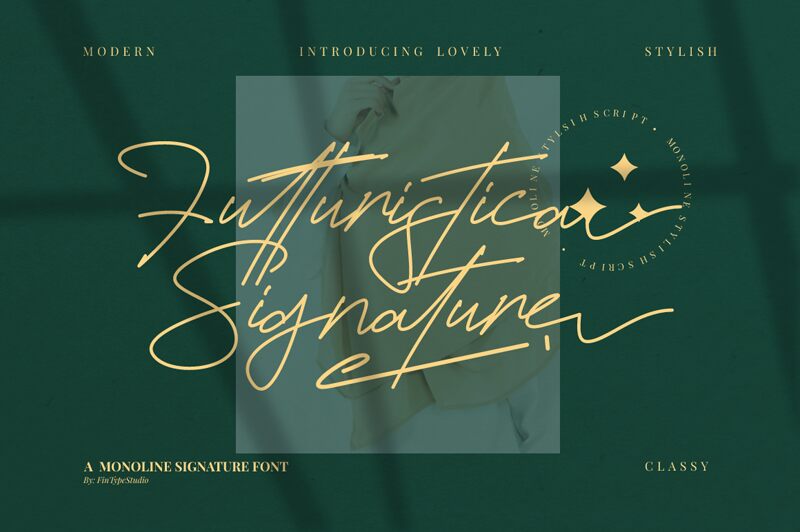
Futturistica Signature, a creation of FinType Studio, emerges as a handwritten font that exudes both elegance and modernity. With its extra-light weight, this typeface offers a delicate and refined aesthetic that captures the essence of personal touch in digital form. Its flowing lines and organic curves mirror the intricacies of human penmanship, bringing warmth and personality to the screen.
The charm of Futturistica Signature lies in its ability to blend contemporary flair with the intimate feel of handcrafted artistry. This makes it particularly suitable for branding projects, invitations, or any creative endeavor that requires a bespoke feel. Whether gracing the pages of a wedding album or elevating the sophistication of business collateral, Futturistica Signature stands out for its versatility and visual appeal.
Each stroke and character is designed with attention to detail that speaks volumes about its potential application across various mediums. From print to digital landscapes, Futturistica Signature is poised to add an authentic signature style wherever it's employed.
Futturistica Signature